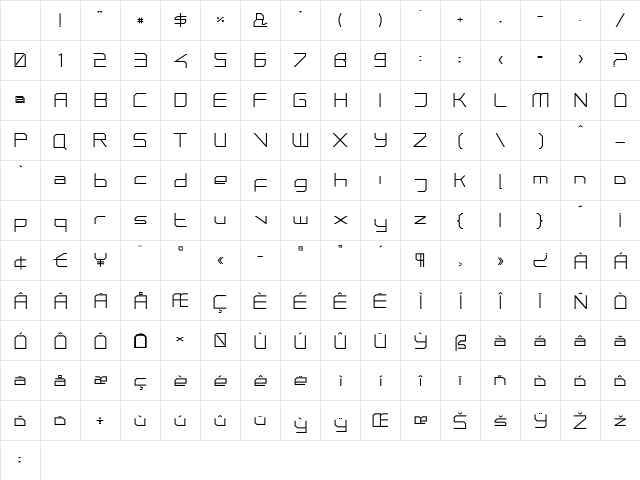
PhutureSqrdClsd Regular Free Font
PhutureSqrdClsd Regular
Design Context for PhutureSqrdClsd
PhutureSqrdClsd is a composed and adaptable typeface that performs quietly and consistently across a wide range of design contexts.